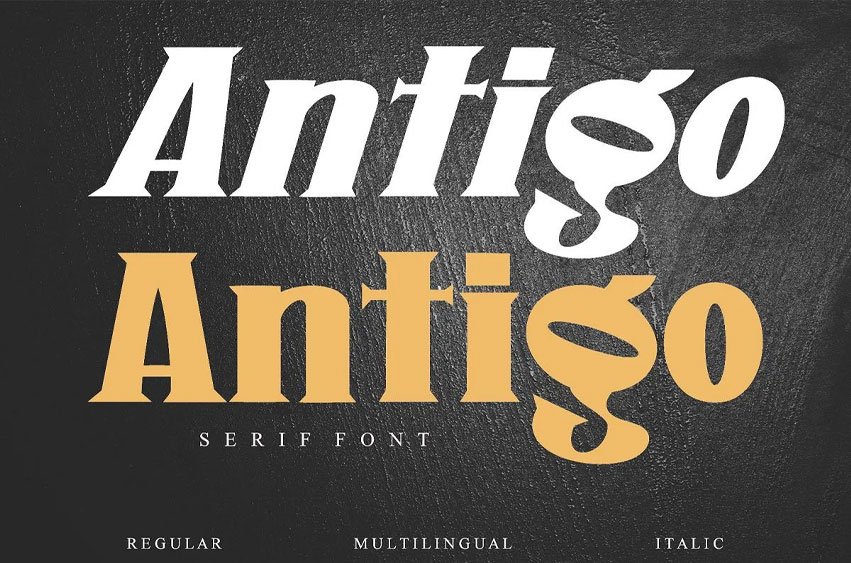
Antigo Font Serif fonts stand for elegance and sophistication. Antigo is an elegant font which combines traditional elements with simplicity. Fine details and curves borrowed from the essence of classical European typefaces.
Antigo’s typographic work is a fine example of professionalism and elegance, designed both strictly and freely to enhance creativity as much as possible.